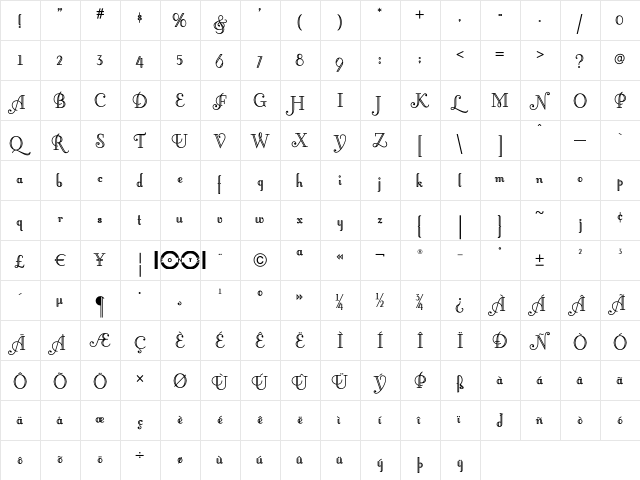
Little Lord Fontleroy NF Regular
| Foundry | Nick's Fonts |
| Designer | Nick Curtis |
Design Context for Little Lord Fontleroy NF Typeface
Little Lord Fontleroy NF is a composed and adaptable typeface that performs quietly and consistently across a wide range of design contexts.